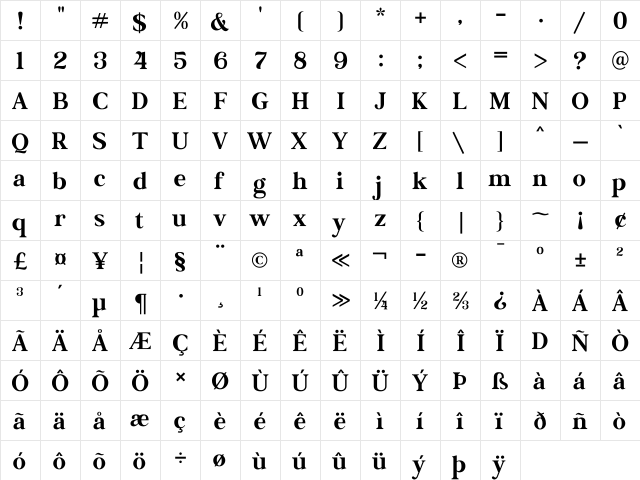
MagicalSource Medium
Design Context for MagicalSource Typeface
MagicalSource takes a measured approach to typography — its balanced proportions and neutral character make it a reliable workhorse for both digital and print work.